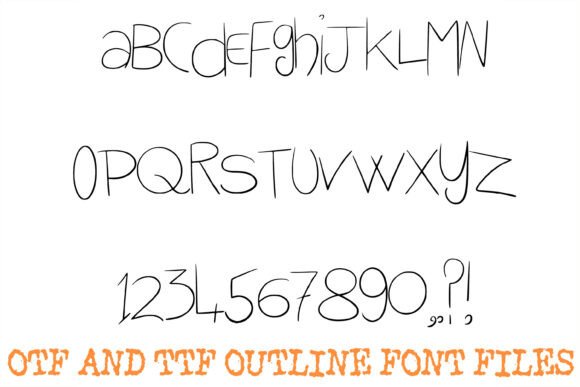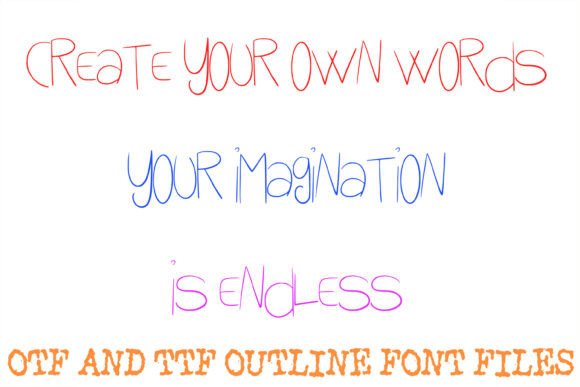
Introduction to Skool Handwriting Font
Bring a touch of youthful charm to your projects with the Skool Handwriting Font.
This hand-drawn typeface features tall, slender characters that perfectly capture the innocent and playful essence of a child’s handwriting It is an ideal choice for educational materials, classroom decor, children’s book titles, and any design that benefits from a casual, “back-to-school” aesthetic.
Key Features of Skool Handwriting Font
Why Choose Skool Handwriting Font?
Skool Handwriting Font offers exceptional quality and versatility, making it a valuable addition to your design toolkit. Whether you’re creating for personal projects or commercial use, Skool Handwriting Font delivers professional results.